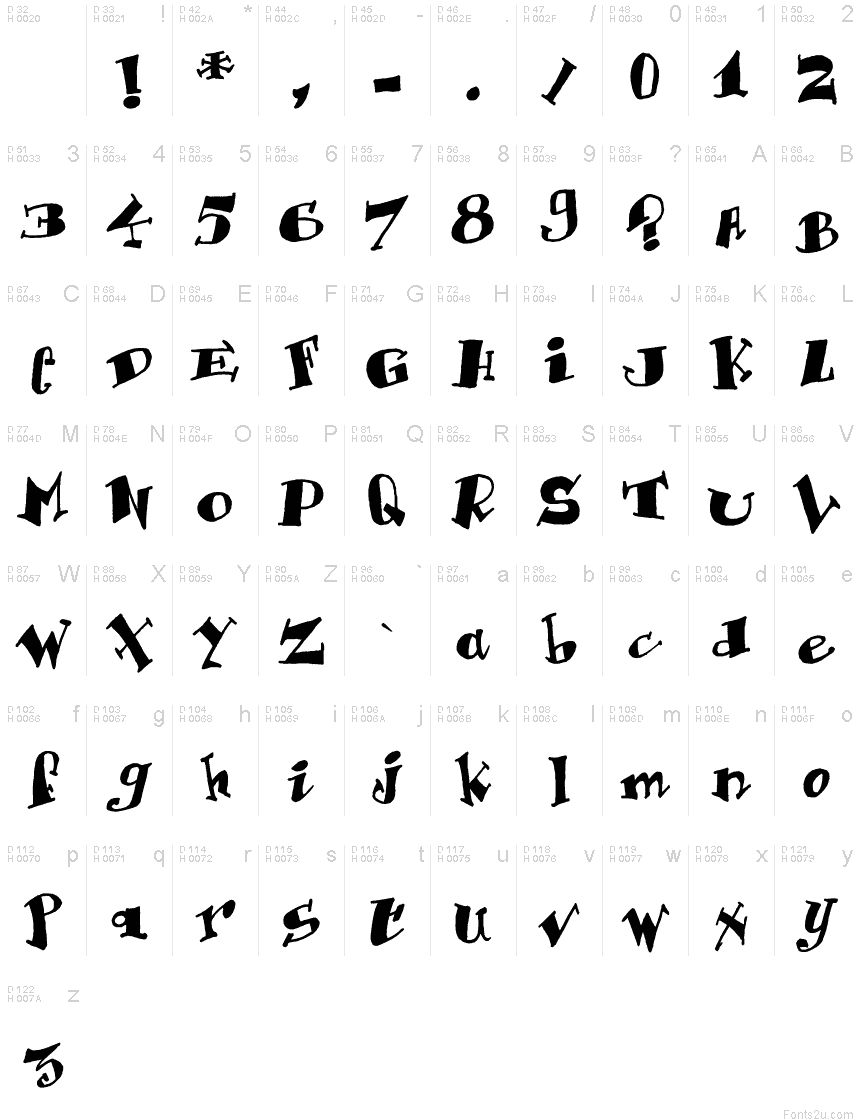
Krazy is a free cartoon display font with lopsided, hand-drawn letters and an unruly silhouette. Thick wedges, sudden hairline turns, and mismatched proportions keep every shape in motion.
Packaging gives this lettering an immediate comic voice, especially for candy, novelty snacks, or children's products. It also suits event posters and game graphics built around slapstick humor or offbeat characters. The jagged edges and exaggerated forms can become part of an illustrated scene, echoing scribbled creatures, crooked signs, and doodles.